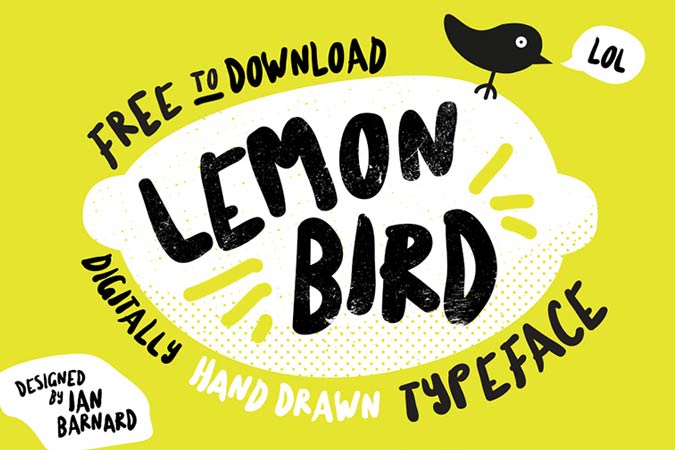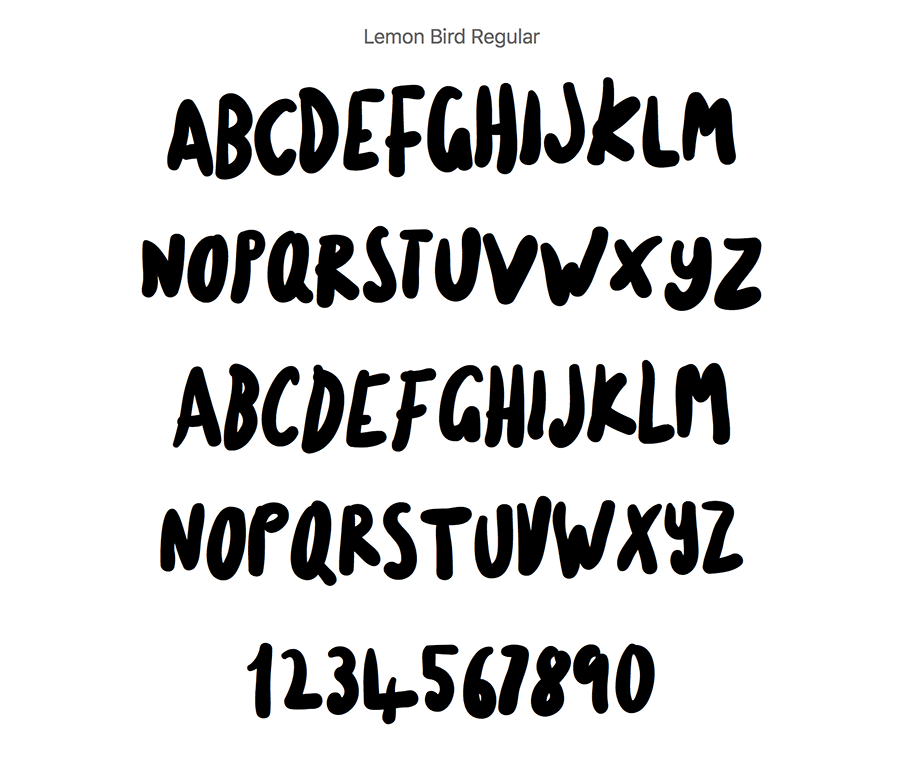
Lemon Bird is a quirky digitally hand drawn typeface made free by the designer Ian Barnard. It has only capital letter designs, but you can get different style of the letter when typing in lowercase. This font works great with creative placements of the texts.